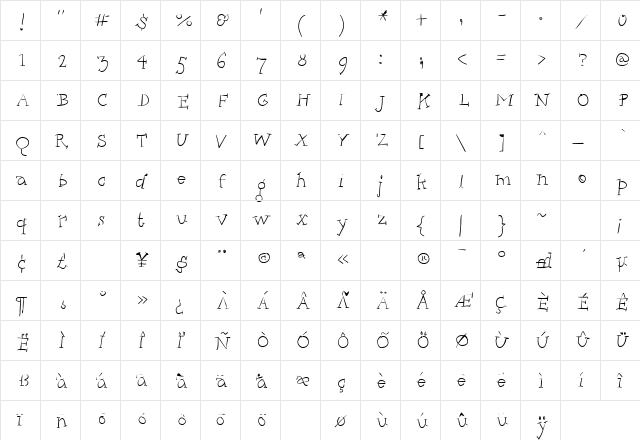
Kleins Dancing Slapzerif Regular
Design Context for Kleins Dancing Slapzerif Typeface
Kleins Dancing Slapzerif is a composed and adaptable typeface that performs quietly and consistently across a wide range of design contexts.